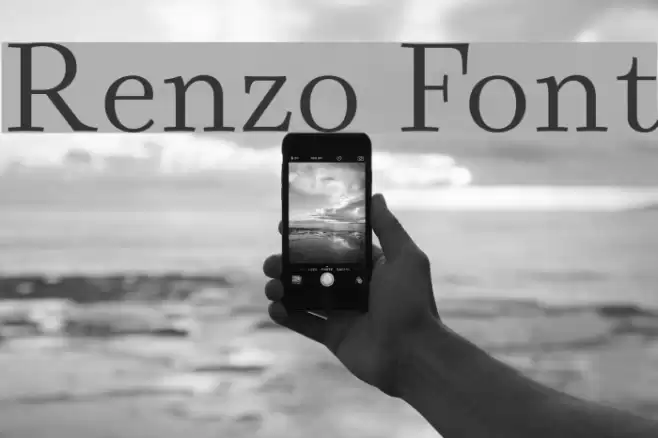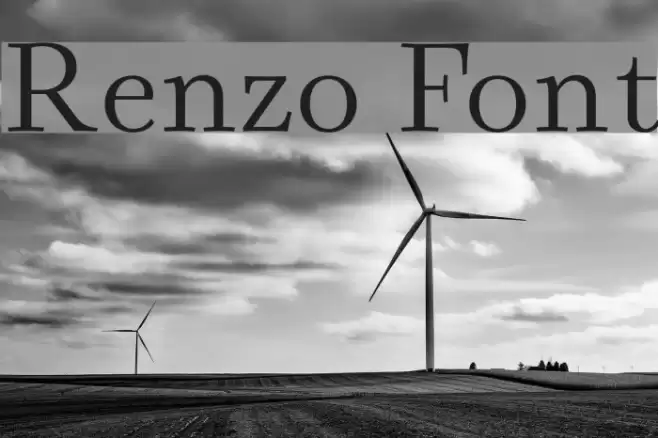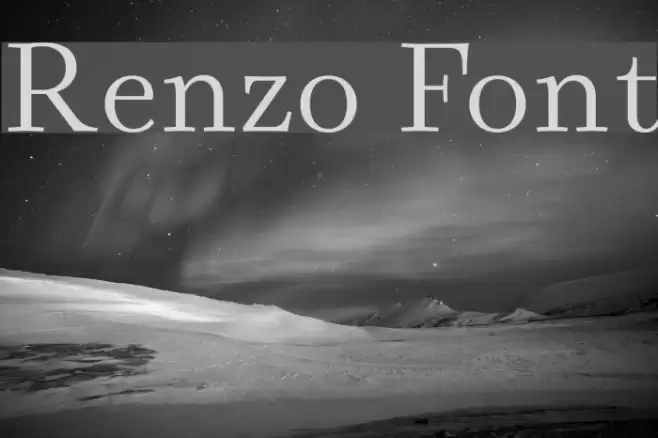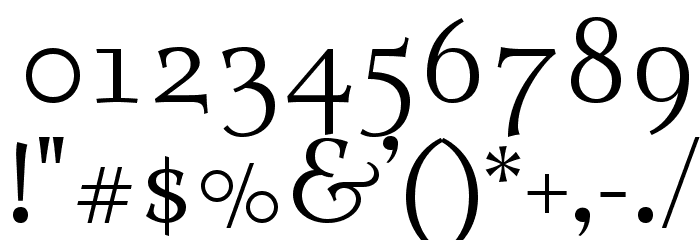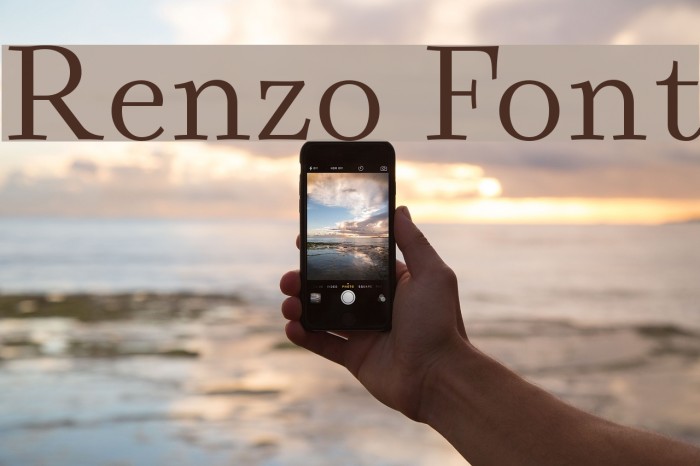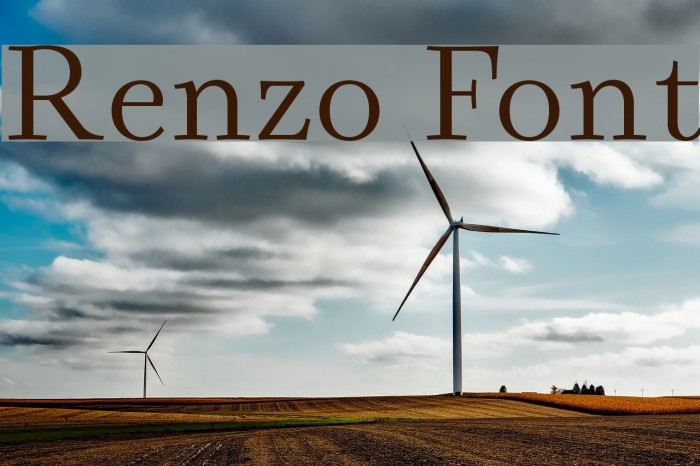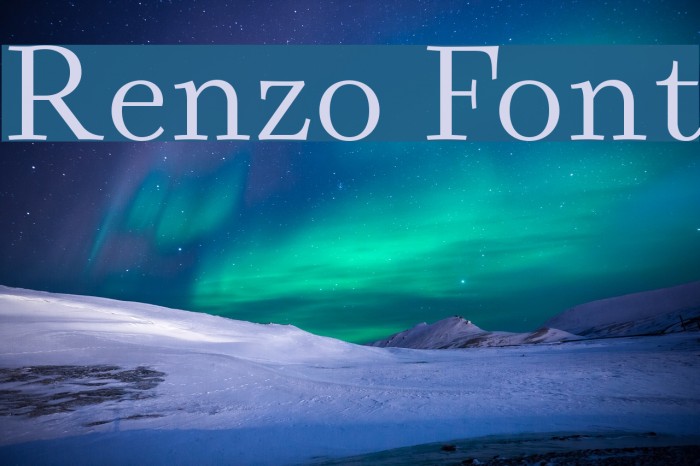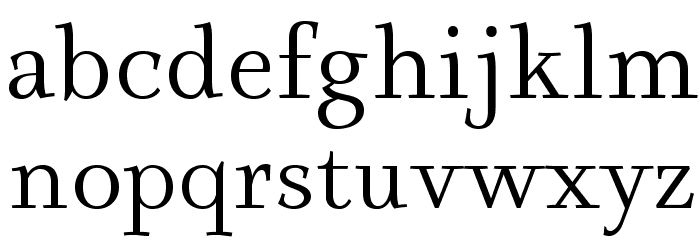
Renzo Font
Renzo Description
This font features a classic serif design with elegant and refined strokes. The uppercase letters are tall and stately, with pronounced serifs that add a touch of sophistication. The lowercase letters maintain a consistent style, offering a harmonious blend of curves and straight lines. Numbers are clear and easy to read, with a slight flair in the design that complements the overall aesthetic. Special characters are well-integrated, maintaining the font's cohesive appearance. The font's balance of tradition and modernity makes it versatile for various applications.
A classic serif font with elegant strokes and a refined, sophisticated style from Serif fonts.
- Proposed Projects: Ideal for editorial design, book covers, formal invitations, and branding projects that require a touch of elegance.
- Overall Style: Classic